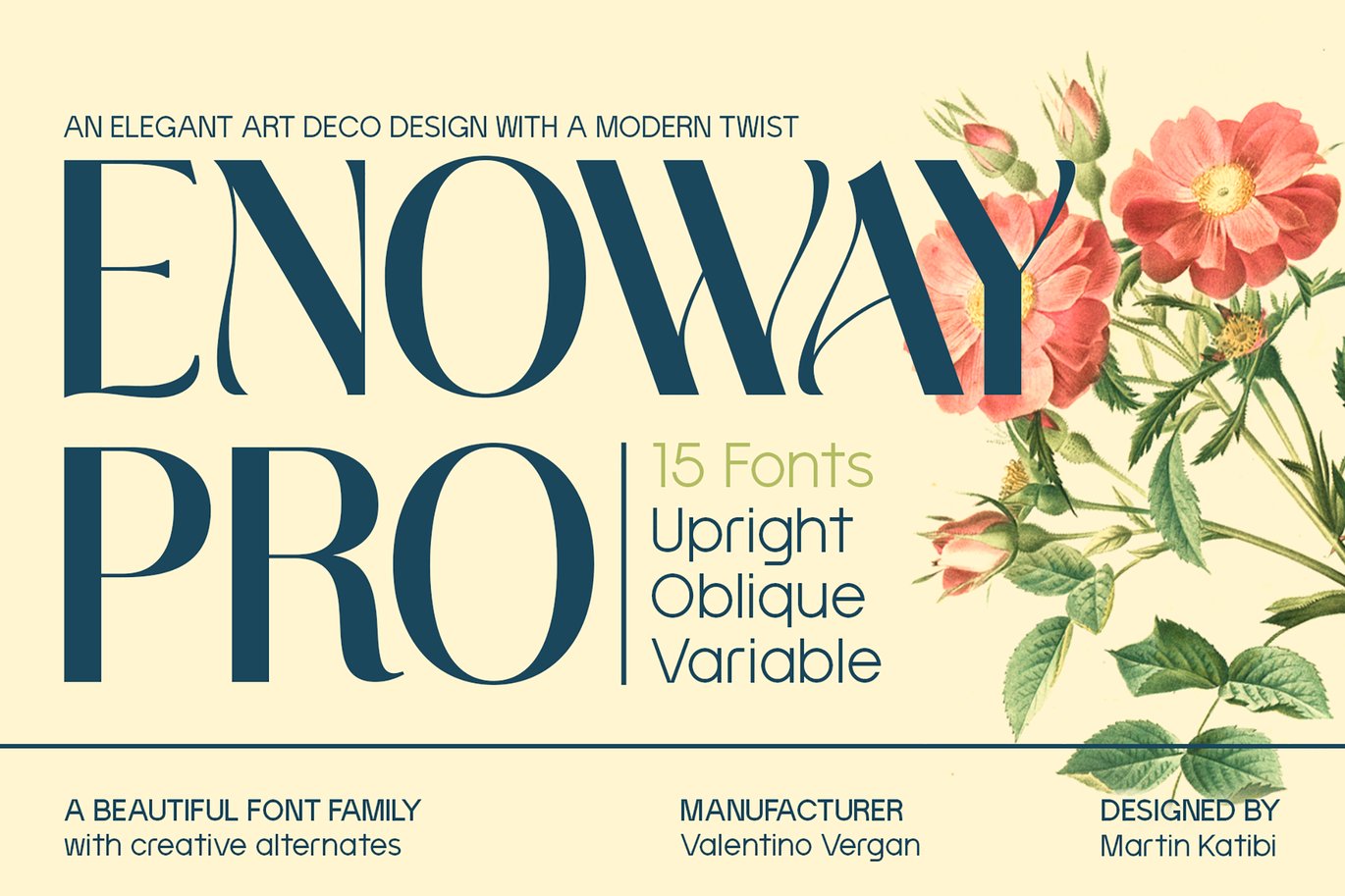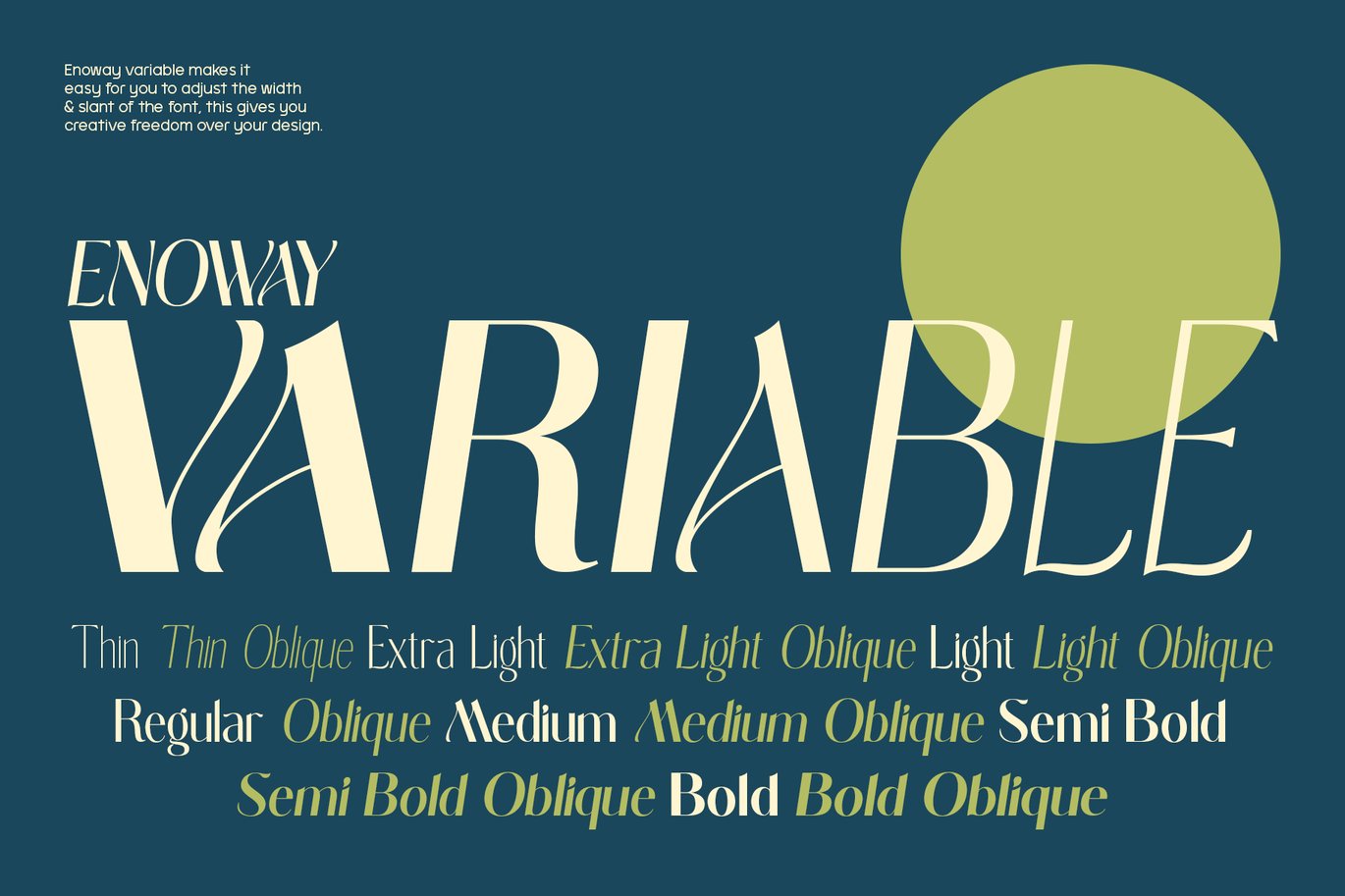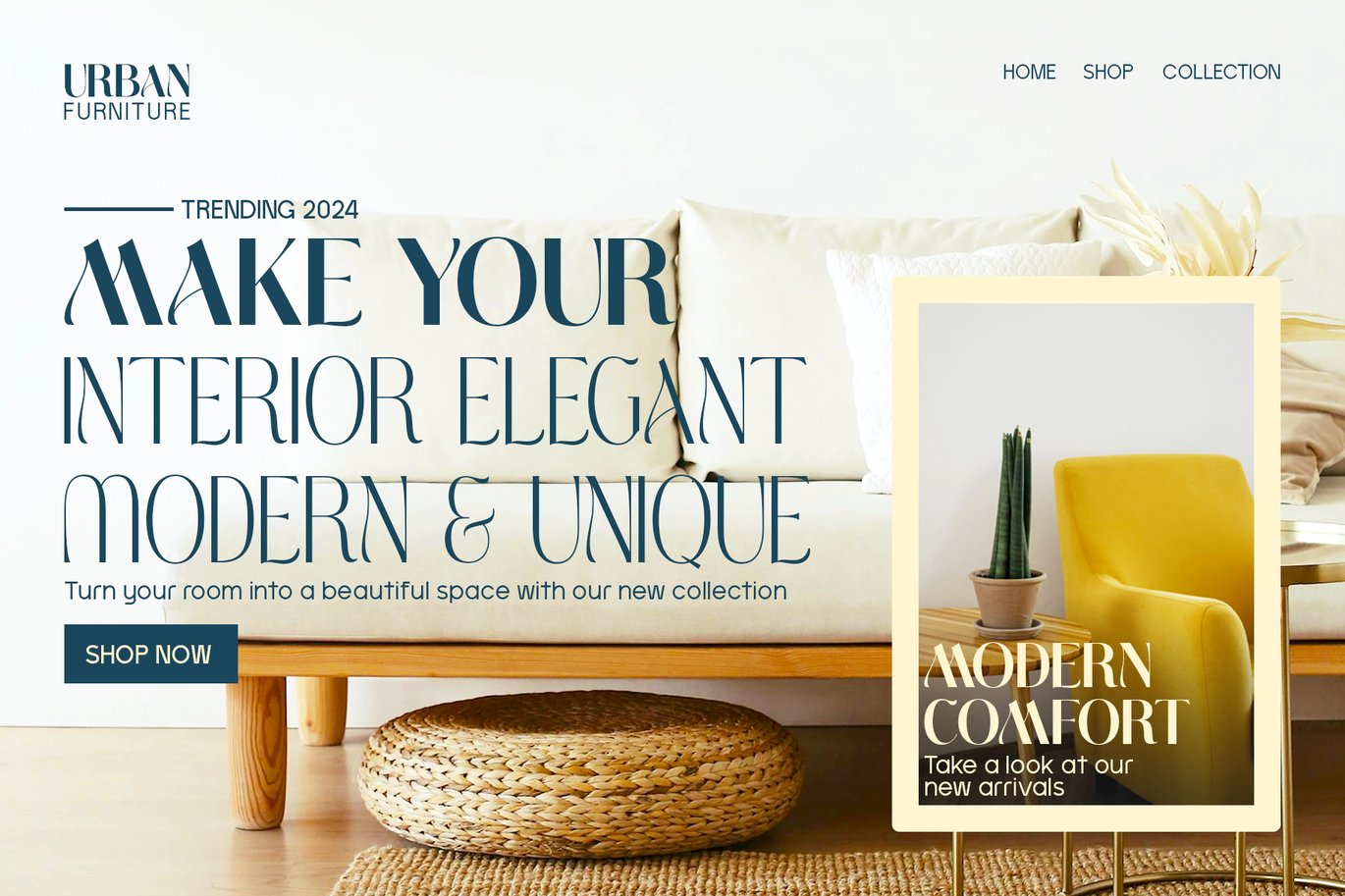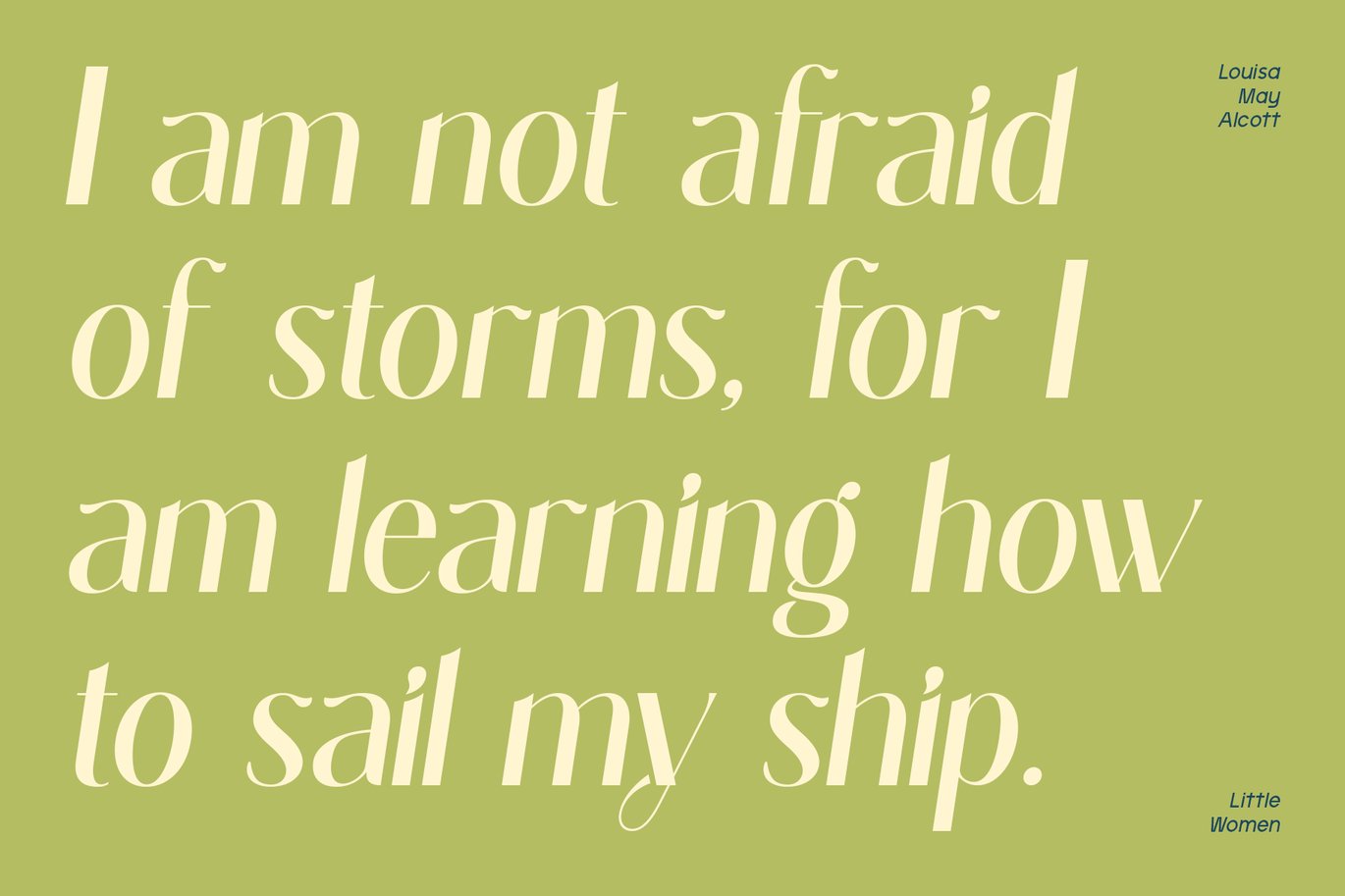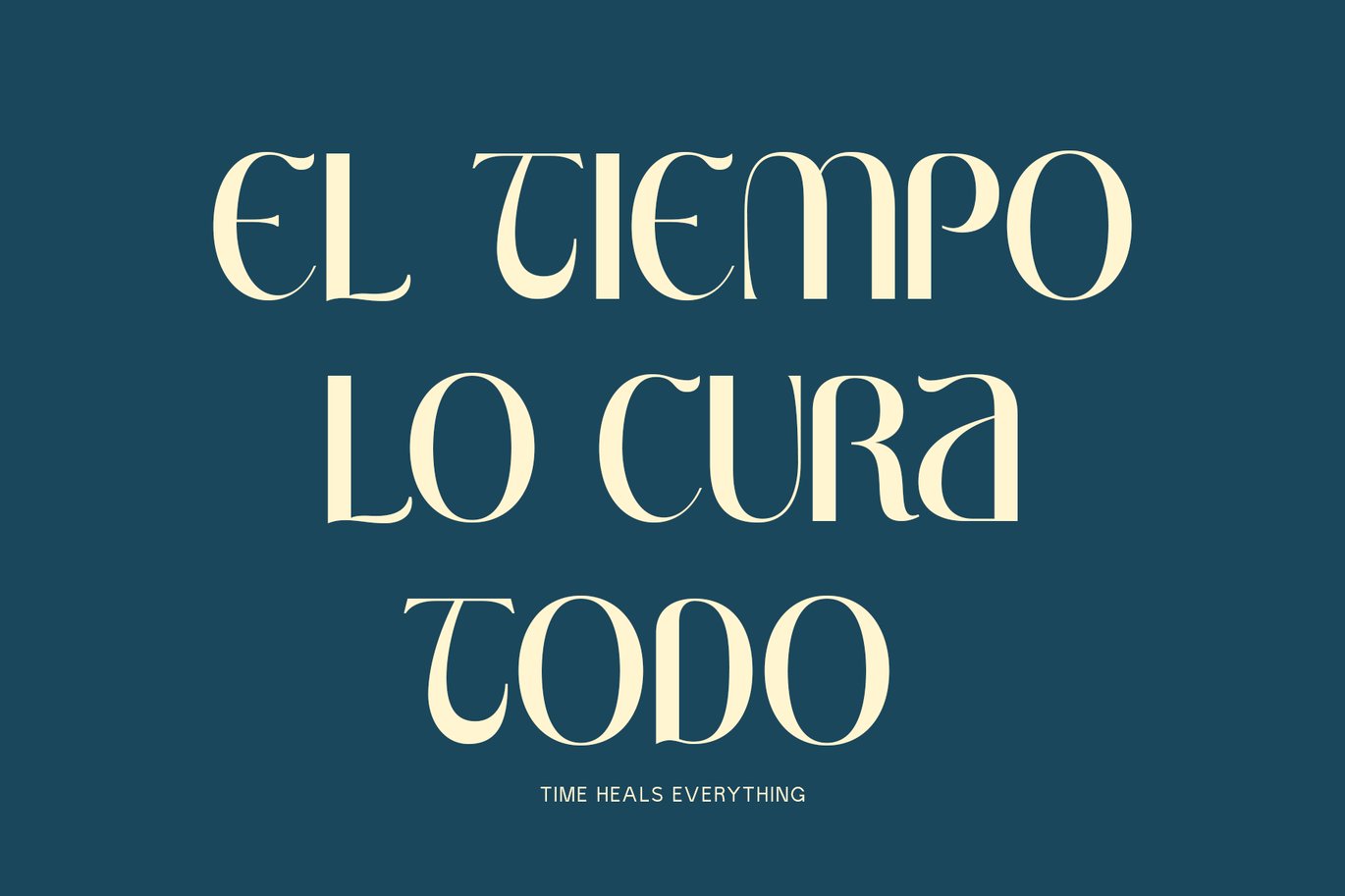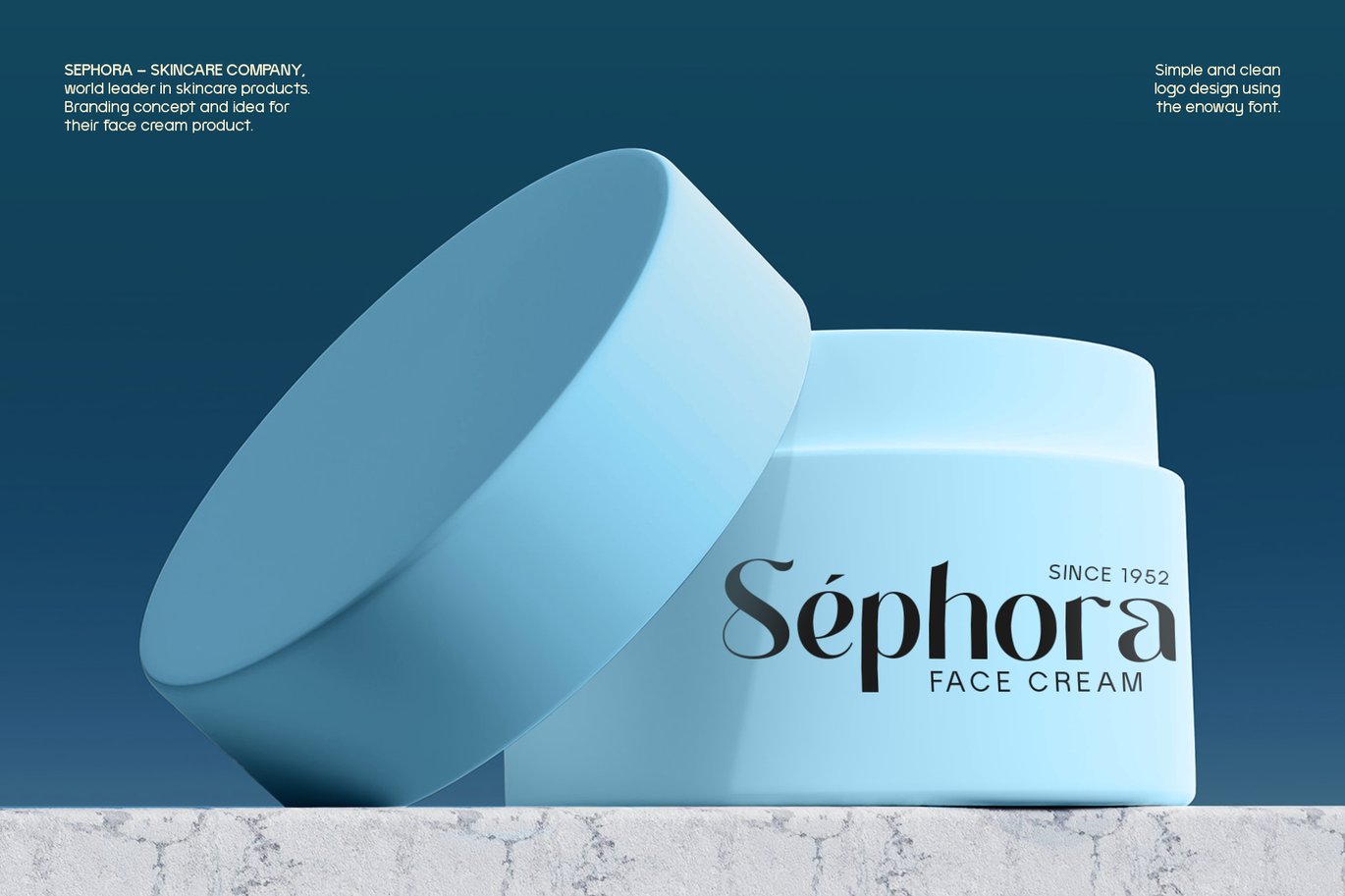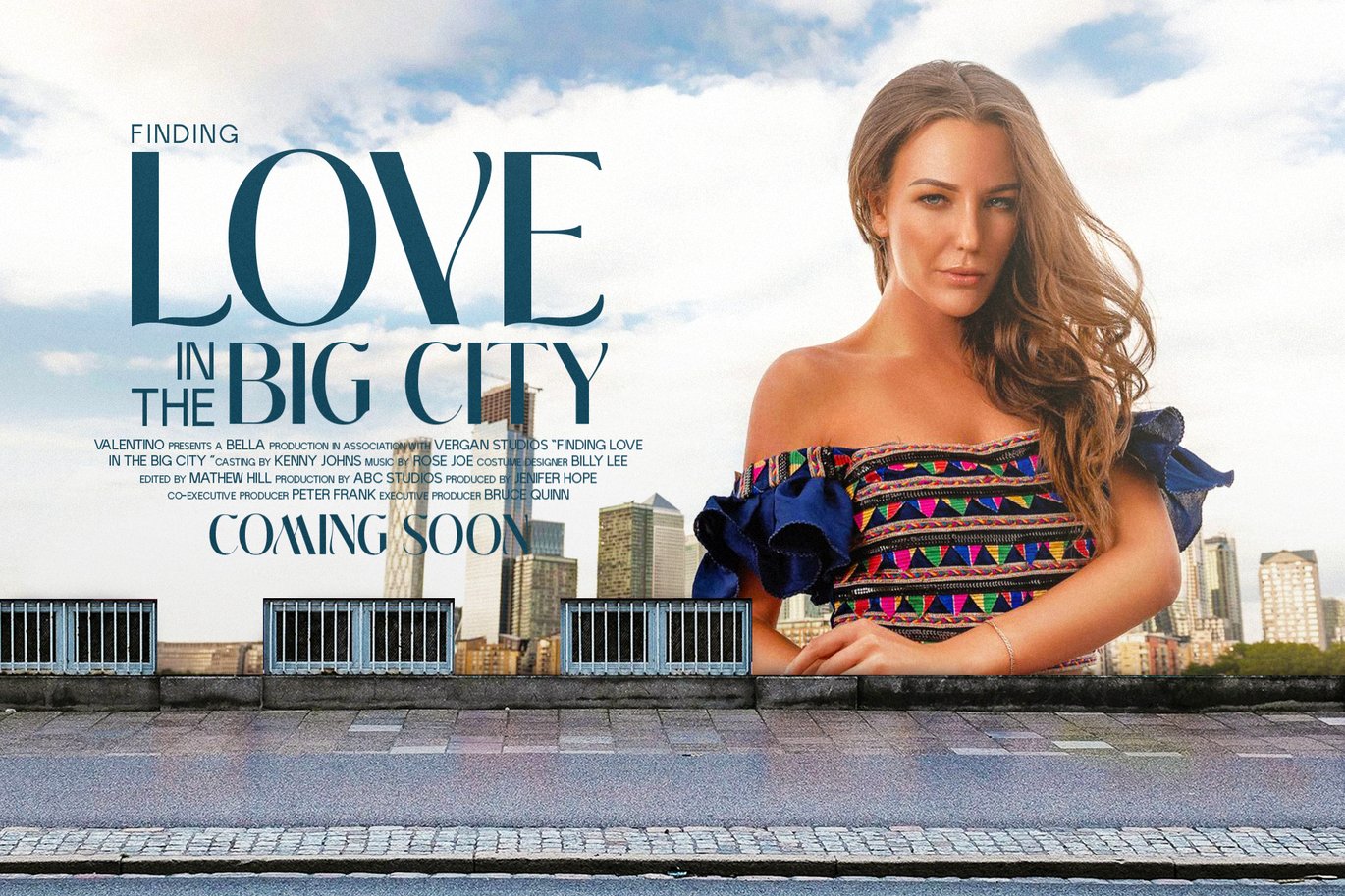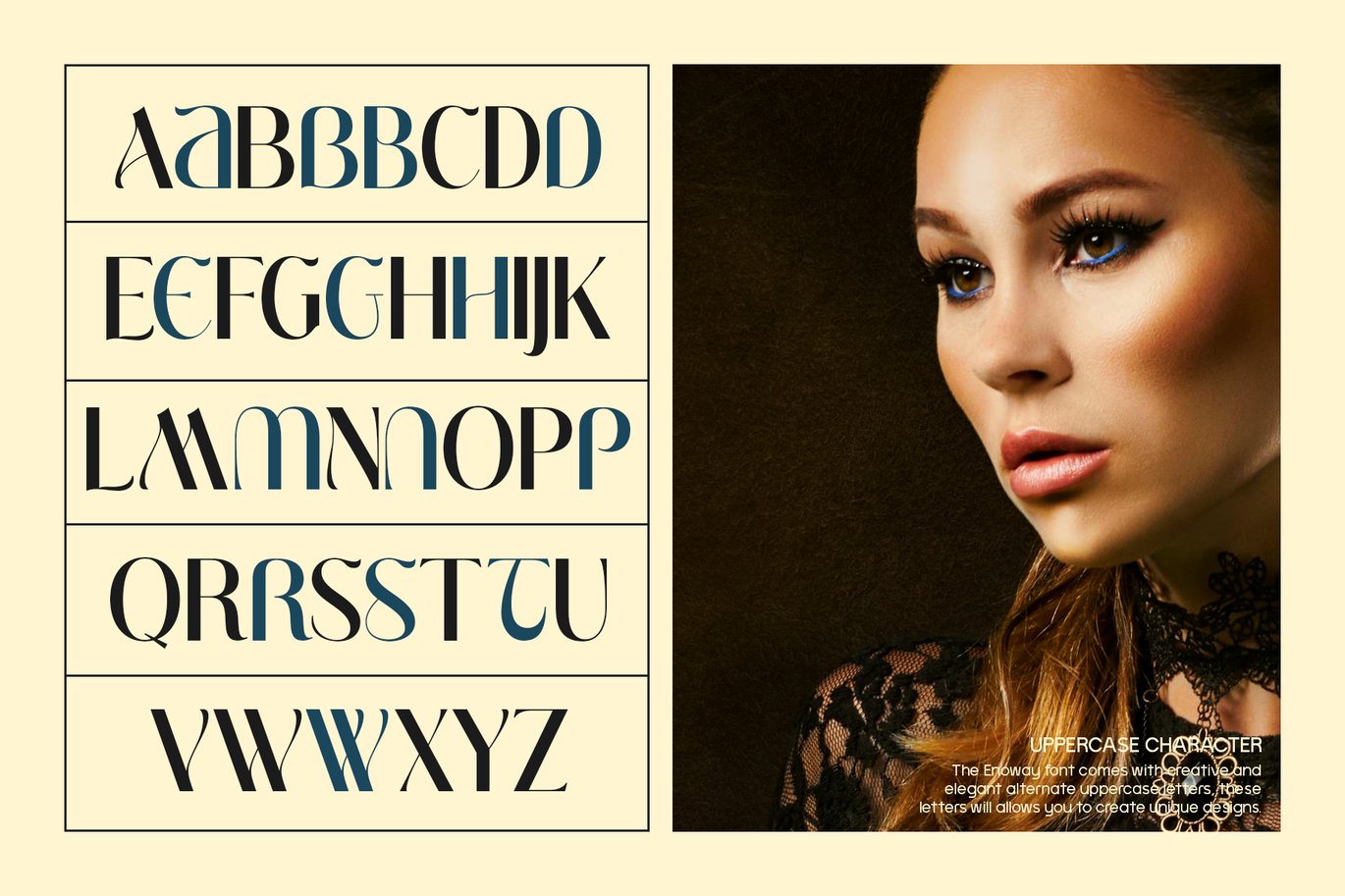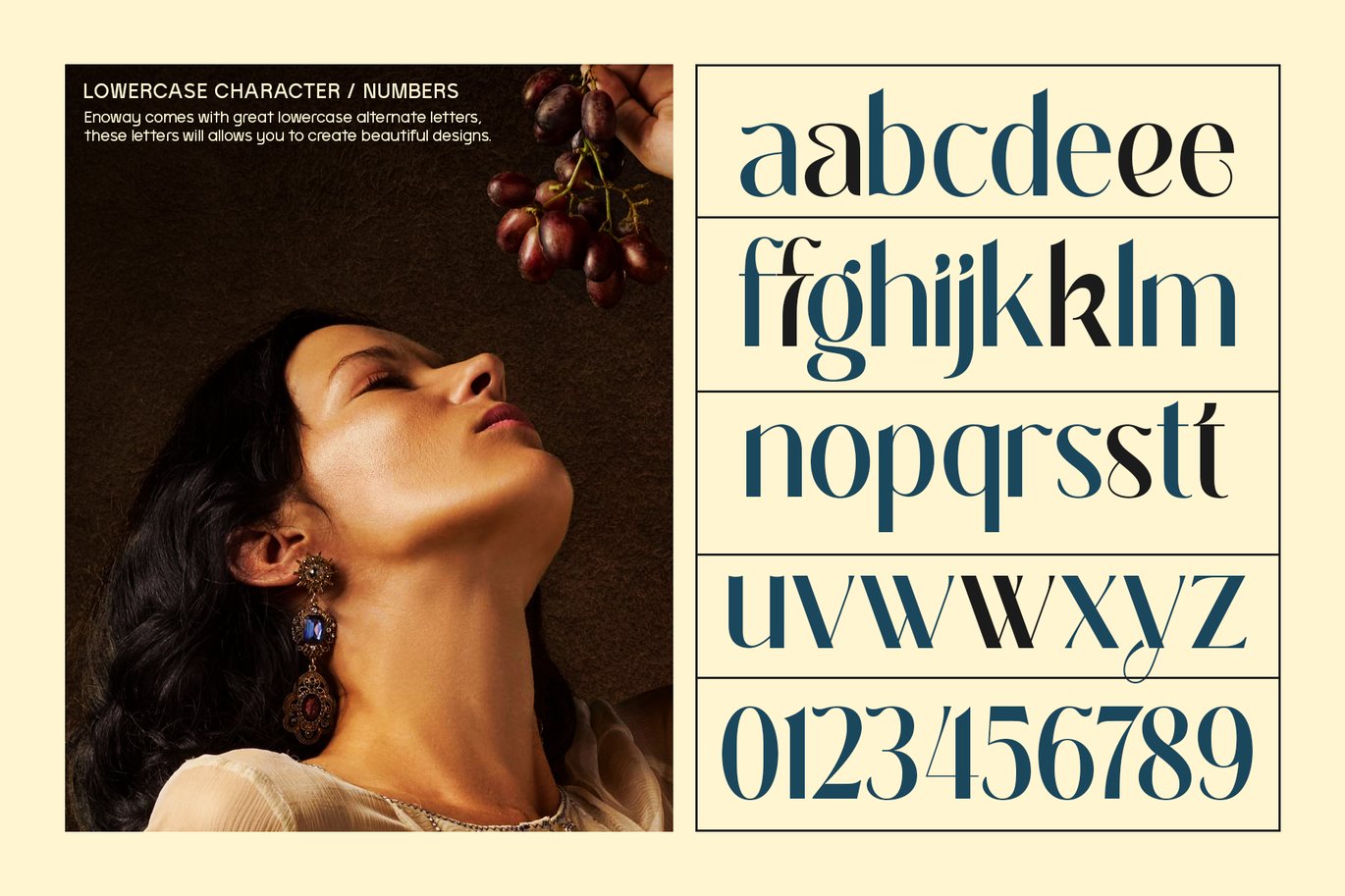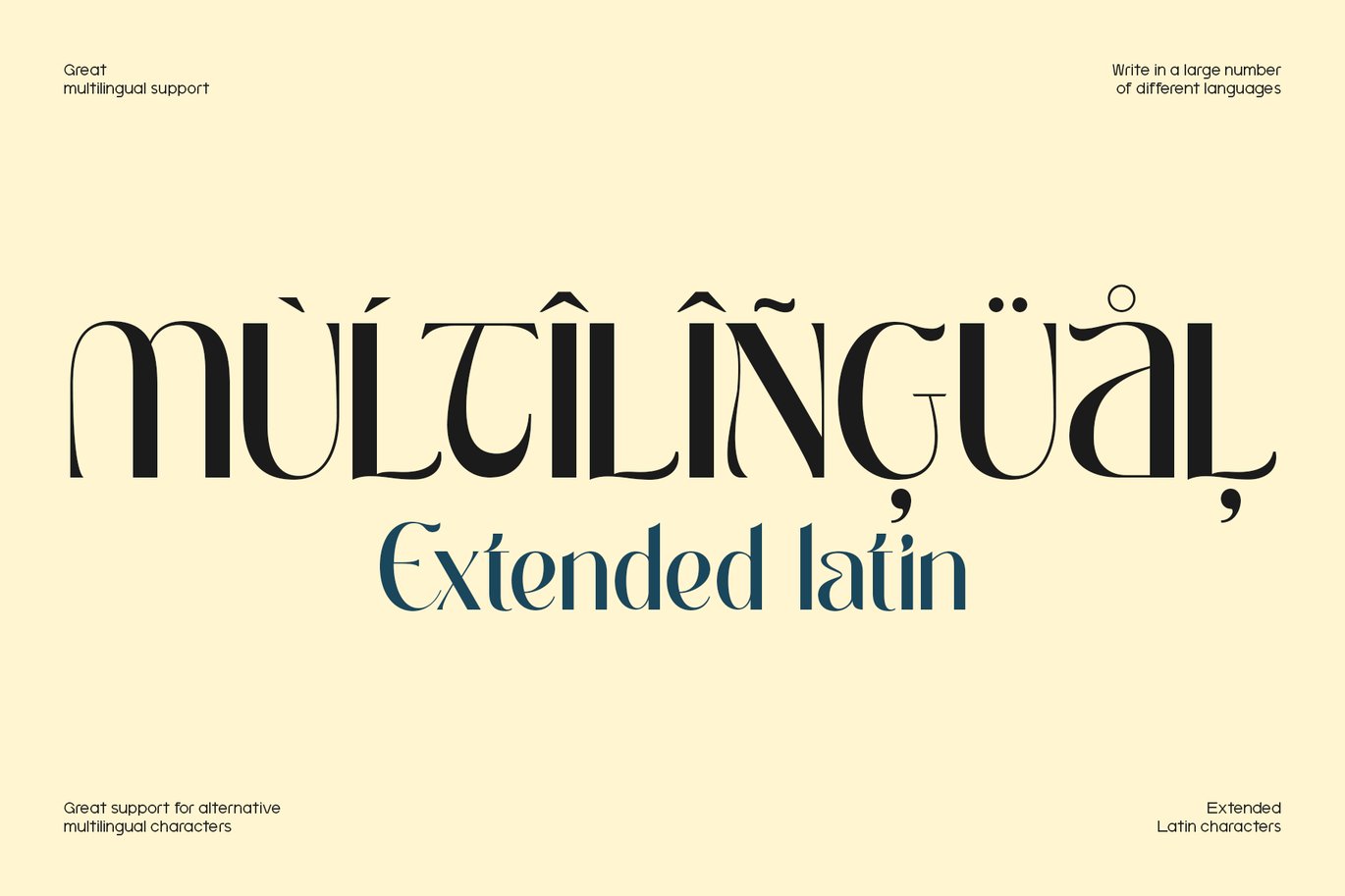
Enoway Pro – Modern Art Deco Font
Enoway Pro is a modern elegant font family, which leans towards the Art Deco style. The Enoway Pro typeface was inspired by a combination between Art Deco and Art Nouveau typography, which is characterized by decorative designs and embellished stroke endings.
Enoway Pro is an ideal font for designers and agencies who are looking to create beautiful graphic designs. Enoway Pro comes in 7 weights, each weight has an oblique version. The easy to use variable version of Enoway Pro, gives you the flexibility to manually adjust the fonts weight and slant. Enoway Pro is equipped with a set of powerful OpenType features, this allows you to quickly change between alternate letters. With its great multilingual support, which includes extended Latin characters, Enoway Pro can produce a large number of different languages.
ENOWAY PRO INCLUDES A FULL SET OF:
- Uppercase and lowercase letters.
- Numbers.
- Punctuation.
- Ligatures.
- Alternate characters.
- Multilingual symbols.